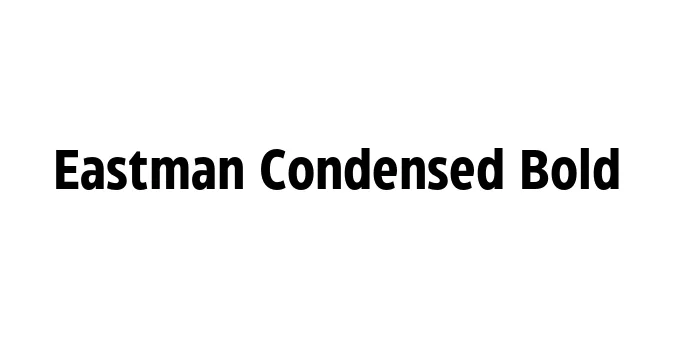
Eastman Condensed Bold
Designed by Francesco Canovaro, Andrea Tartarelli
Eastman Condensed Bold is a high-impact geometric sans serif typeface designed by Francesco Canovaro and Andrea Tartarelli for Zetafonts. Developed as a versatile workhorse, this font family balances mathematical precision with humanistic touches to ensure readability across various media. The Condensed version is specifically engineered to provide a powerful, narrow profile that maximizes space efficiency while maintaining the authoritative presence of the bold weight.
This typeface features a large x-height and open apertures, which are hallmark traits of modern grotesque designs. Its robust architecture makes it exceptionally reliable for complex typographic hierarchies, ranging from digital user interfaces to high-end editorial branding. Whether used in print or on screen, Eastman Condensed Bold delivers a contemporary aesthetic that is both functional and visually striking.
Eastman Condensed Bold Best Uses
Perfect for high-impact, space-saving titles in magazines and news layouts.
Ideal for creating strong, modern visual identities and logos.
Excellent for hero sections and navigation where horizontal space is limited.
Creates compelling and legible messages for posters and digital banners.